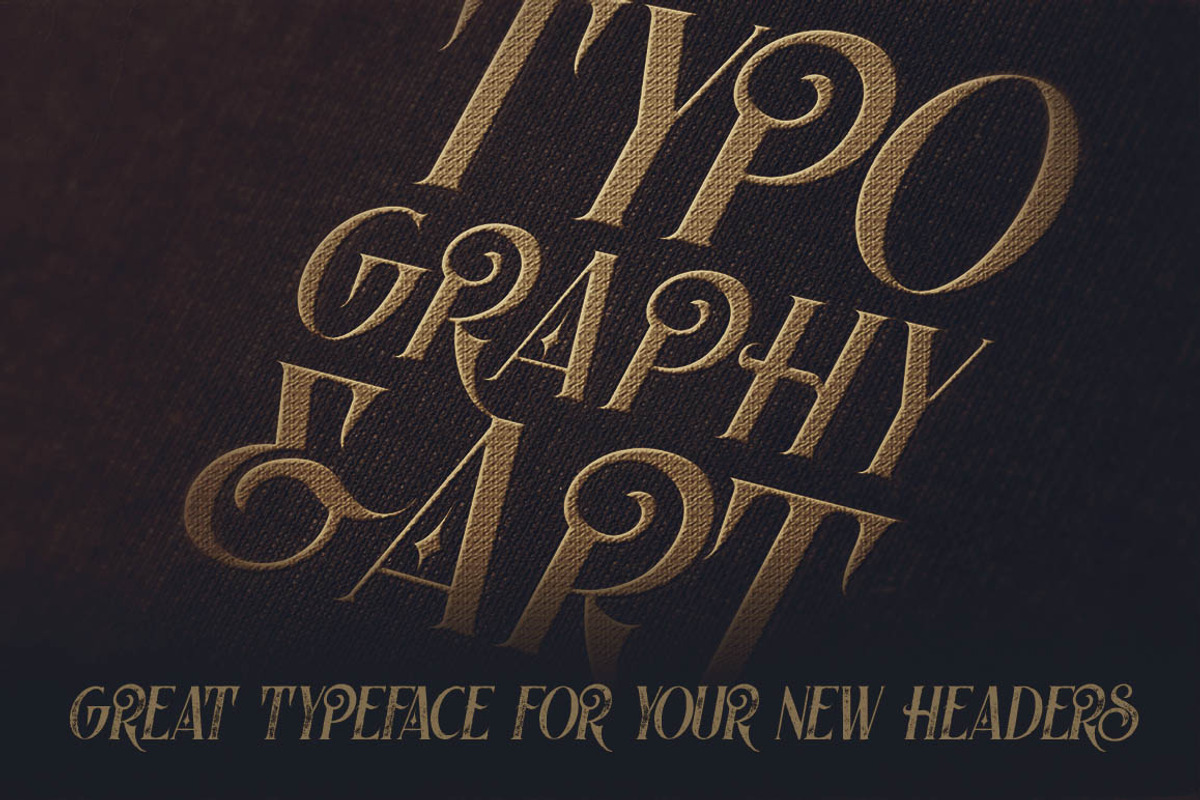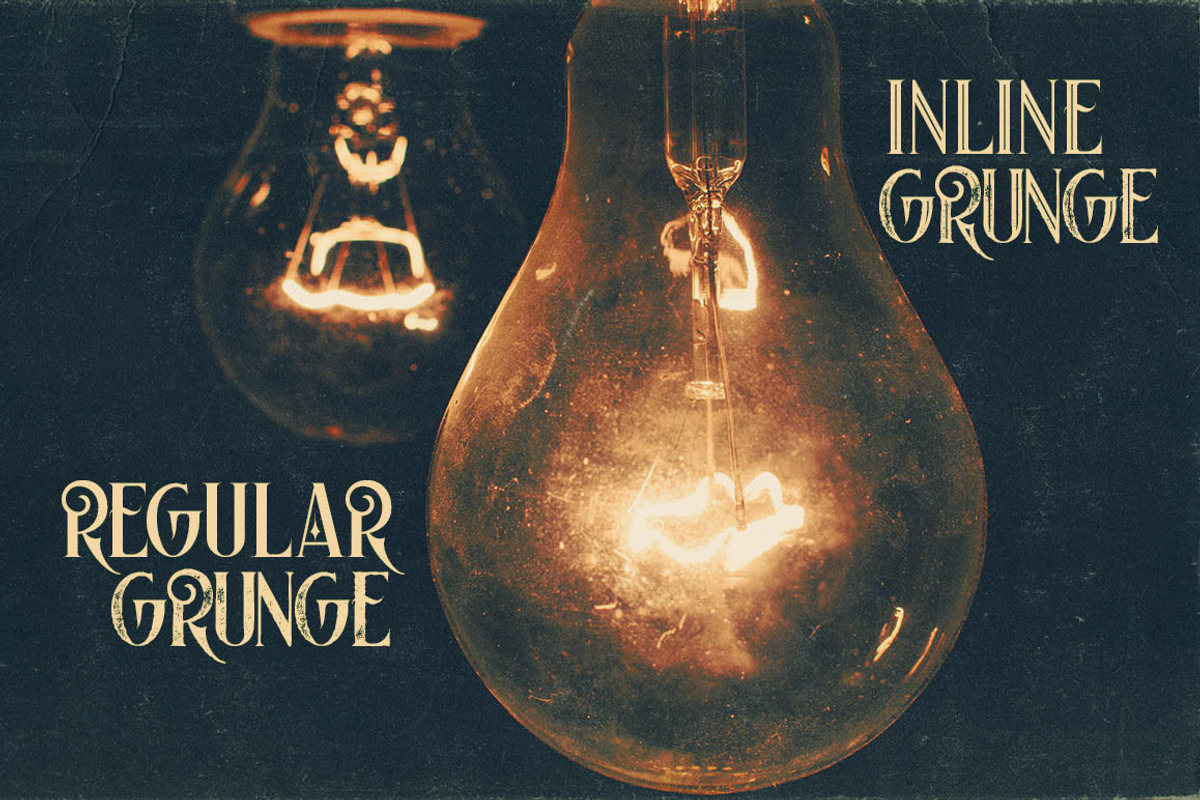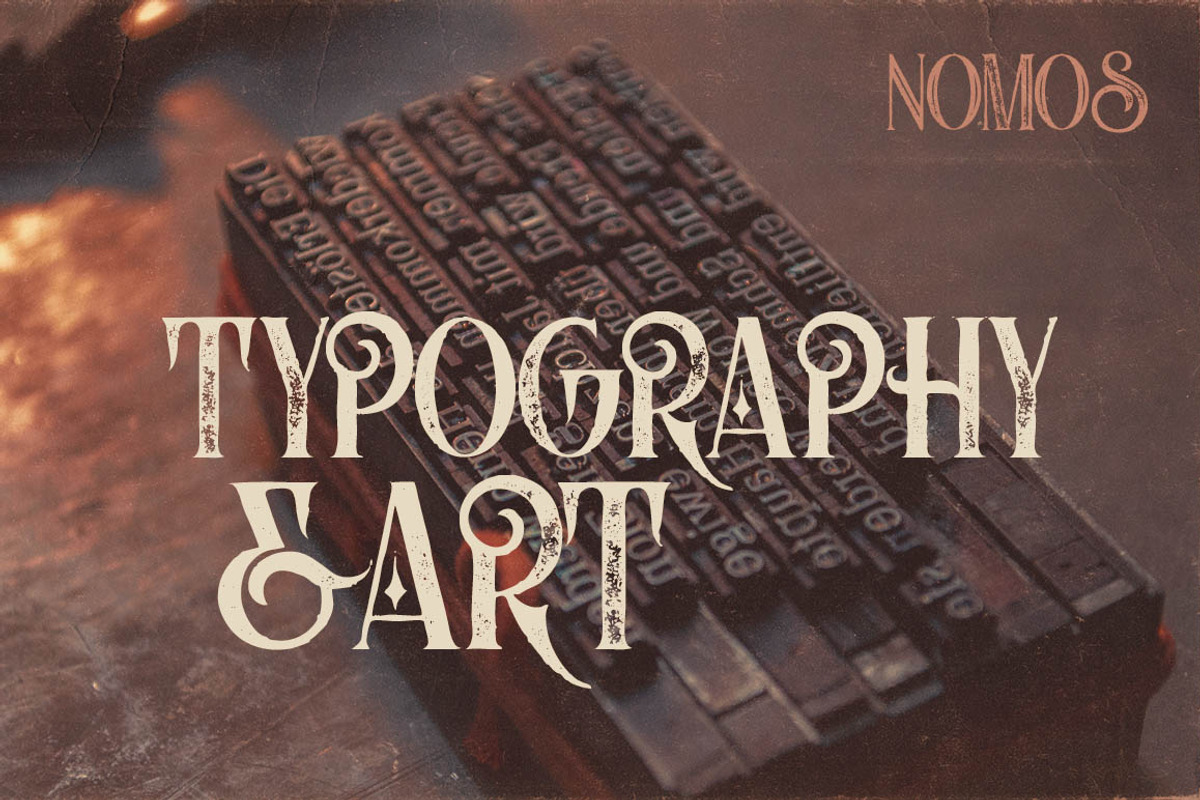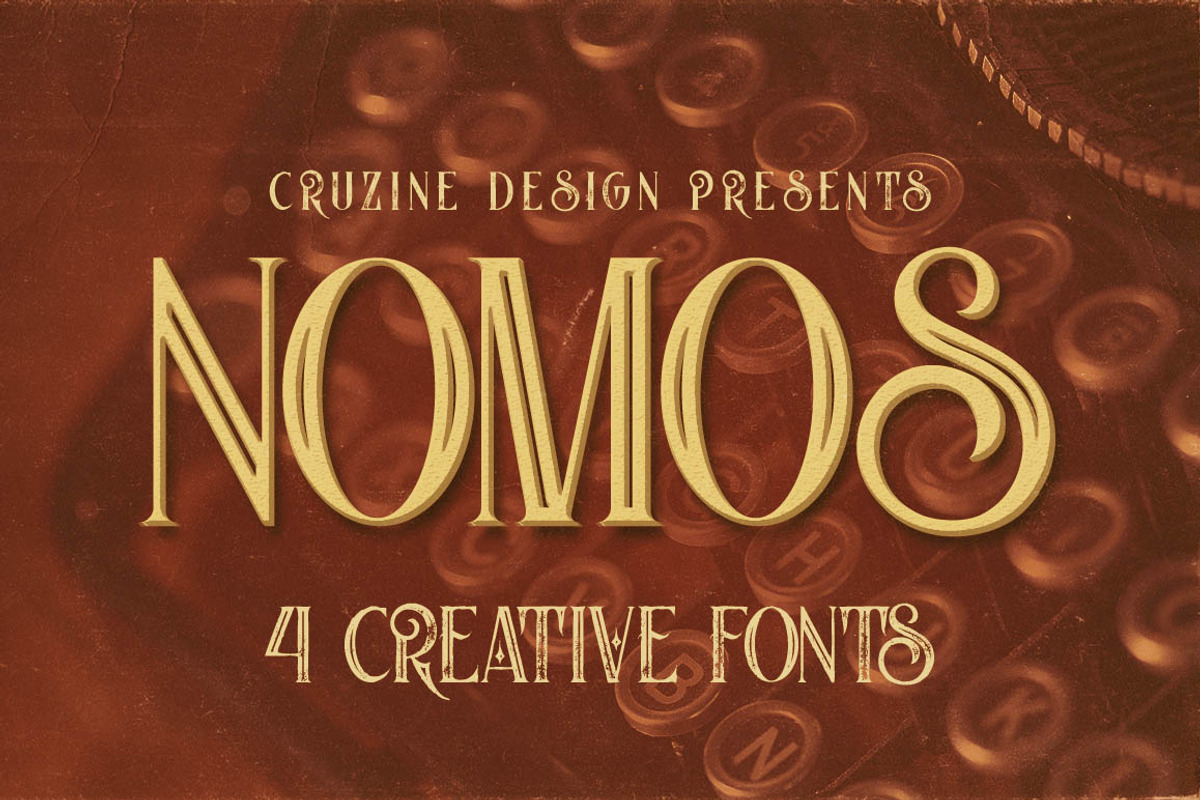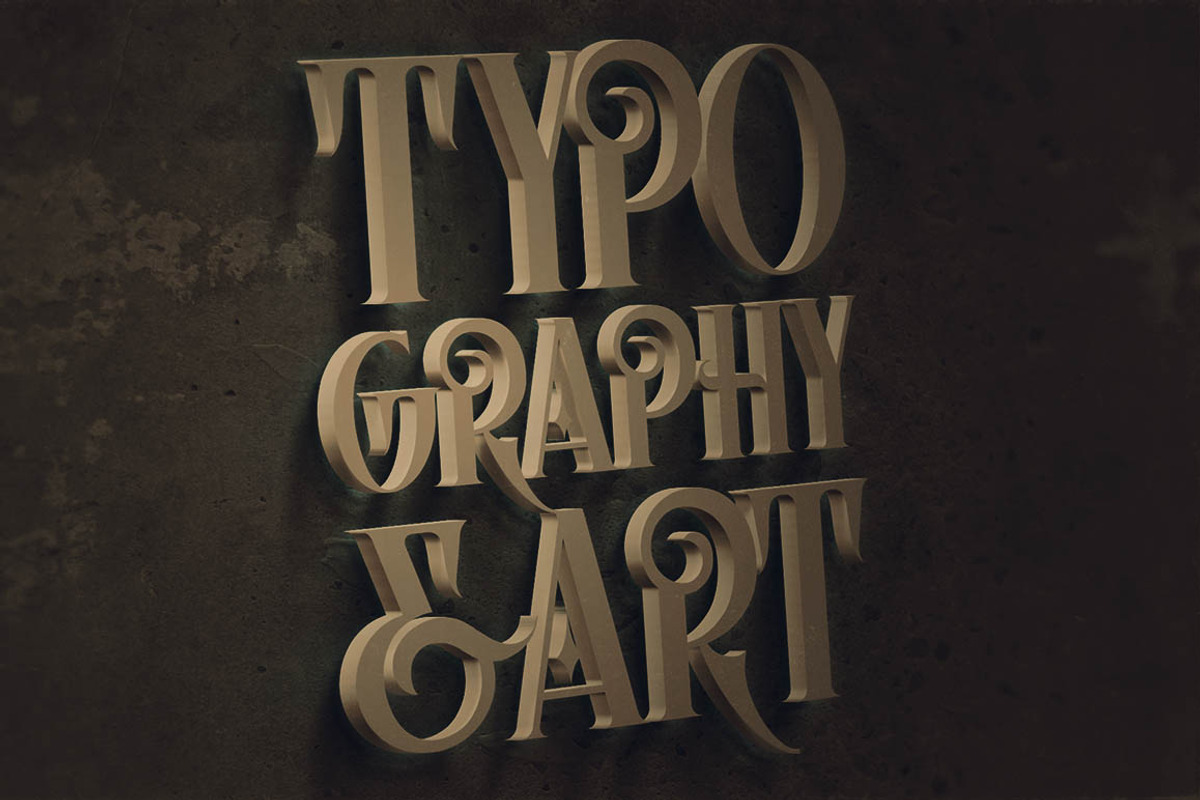
Nomos Typeface
Retro, vintage or steampunk style display font for your new projects. Great for grunge/retro/vintage projects!
Why Nomos Typeface is worth a look
Nomos Typeface by Cruzine fits naturally into Branding, posters, packaging, typography.